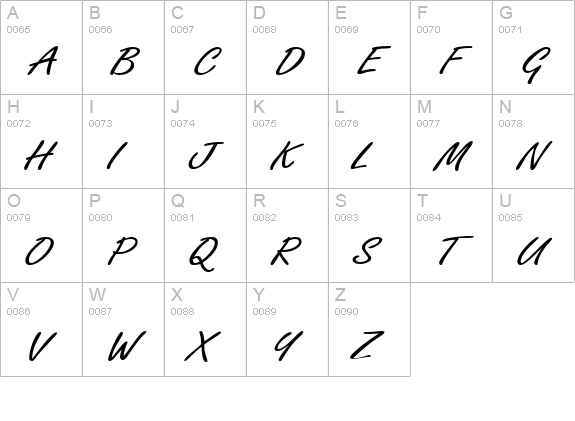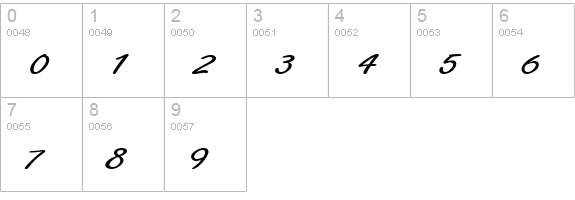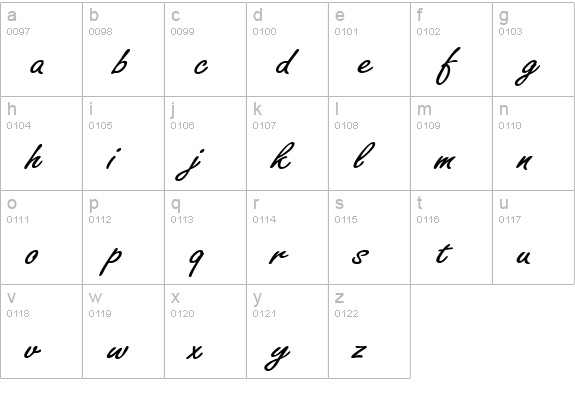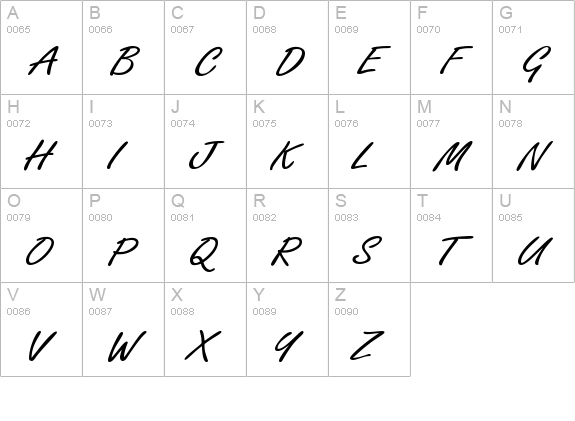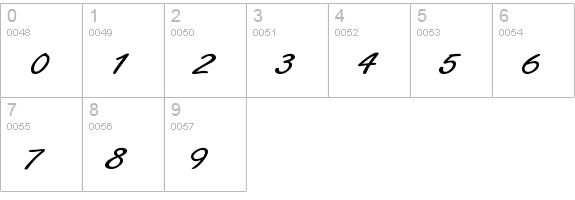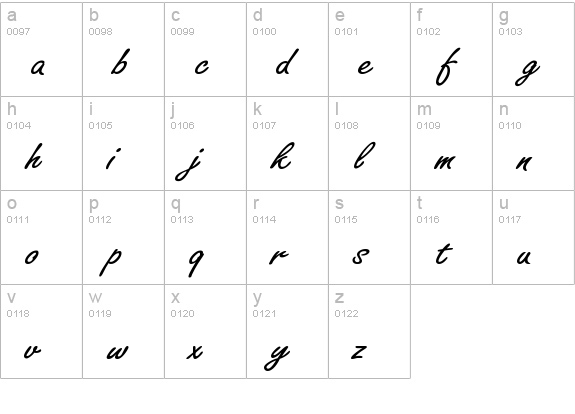
FreelanceAllegro Regular Font Details
FreelanceAllegro Regular is the standard, neutral variant in the FreelanceAllegro typeface family \xE2\x80\x94 well suited to general body text, paragraphs, and standard typographic work.
FreelanceAllegro Regular font is a versatile and elegant typeface that is perfect for a wide range of design projects. Its clean lines and classic proportions make it suitable for both headings and body text, ensuring readability and sophistication. The timeless appeal of FreelanceAllegro Regular font makes it a popular choice for designers looking to add a touch of style to their work. What's even better is that FreelanceAllegro Regular font is available for free download at FontsMarket.com. This means you can easily access this high-quality font without any cost, making it a valuable addition to your design toolkit. Whether you're working on branding, marketing materials, or web design, FreelanceAllegro Regular font will elevate your projects with its professional and polished look. Download it today and see the difference it can make in your designs.